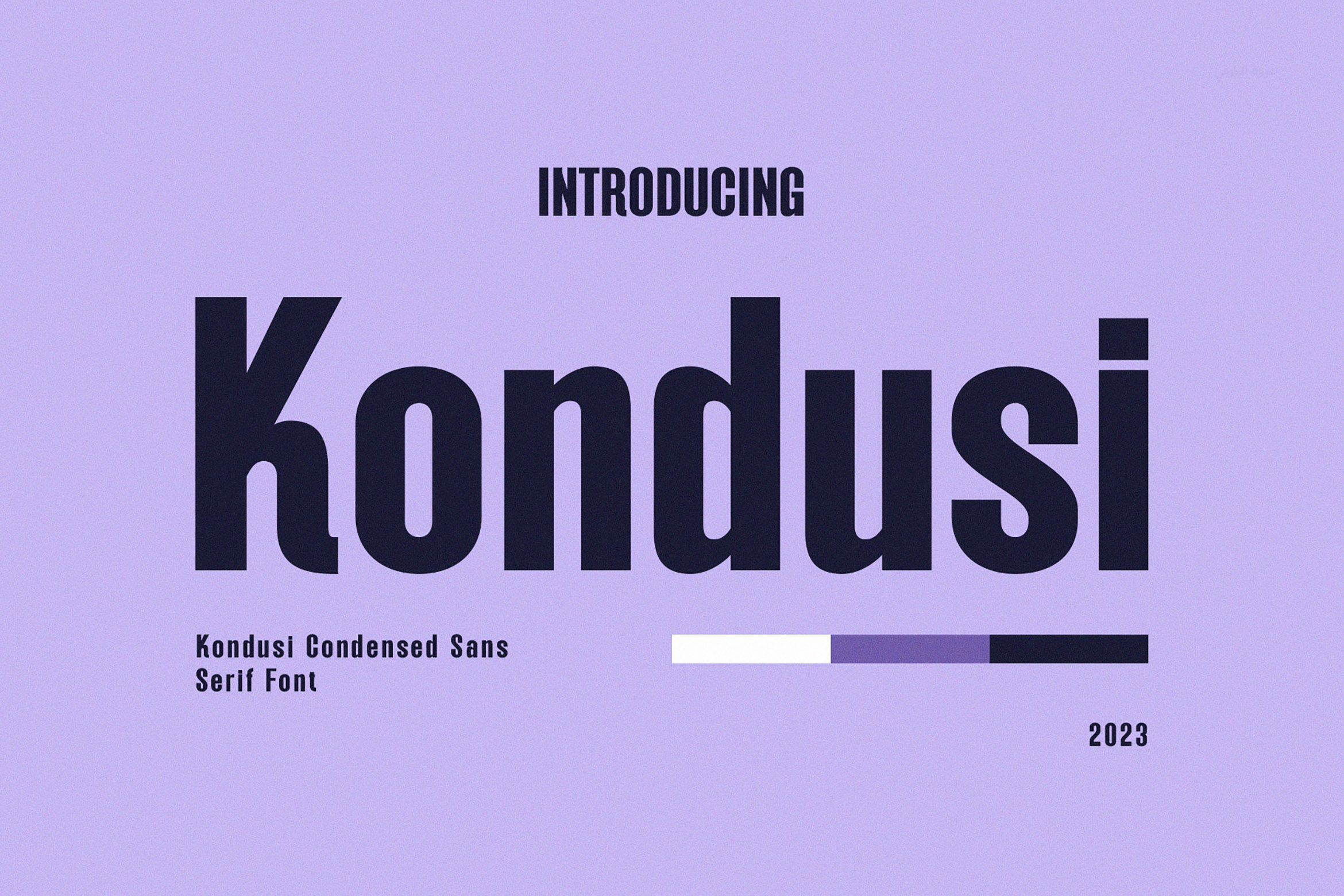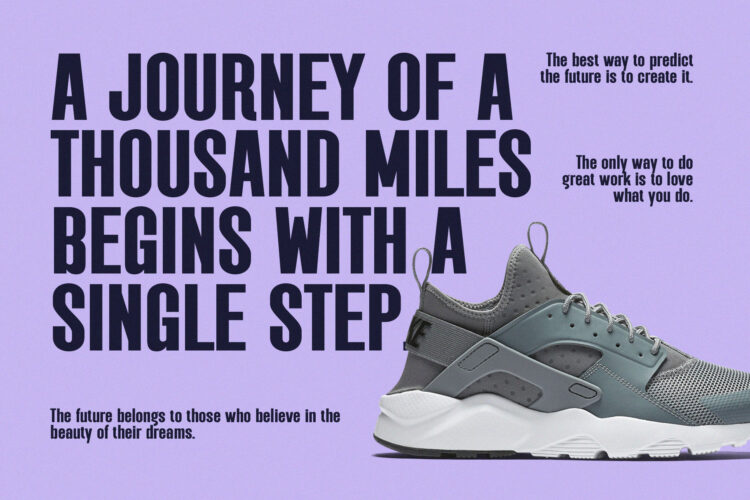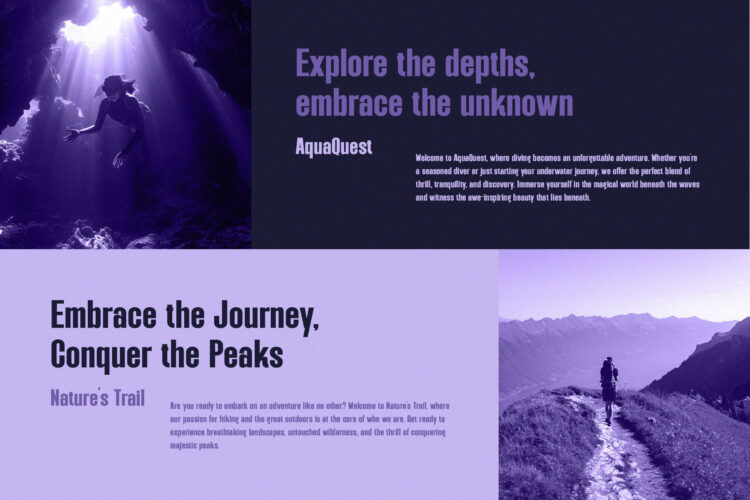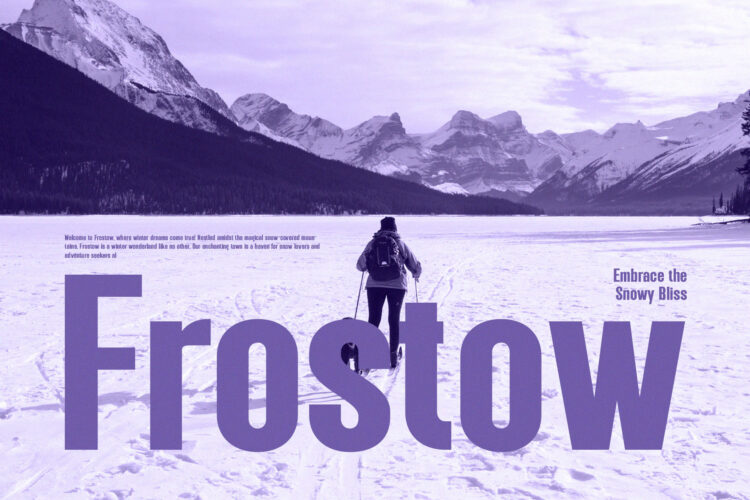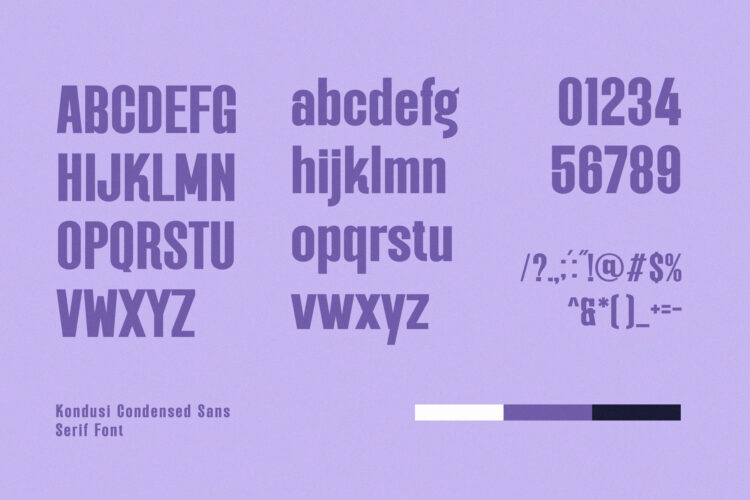
Introducing our new Kondusi, modern sans serif font with elegant style this is perfect for branding, logos, invitation, magazines, product packaging and more.
Kondusi – Modern Sans Serif
Kondusi - Modern Sans Serif
Kondusi – Modern Sans Serif